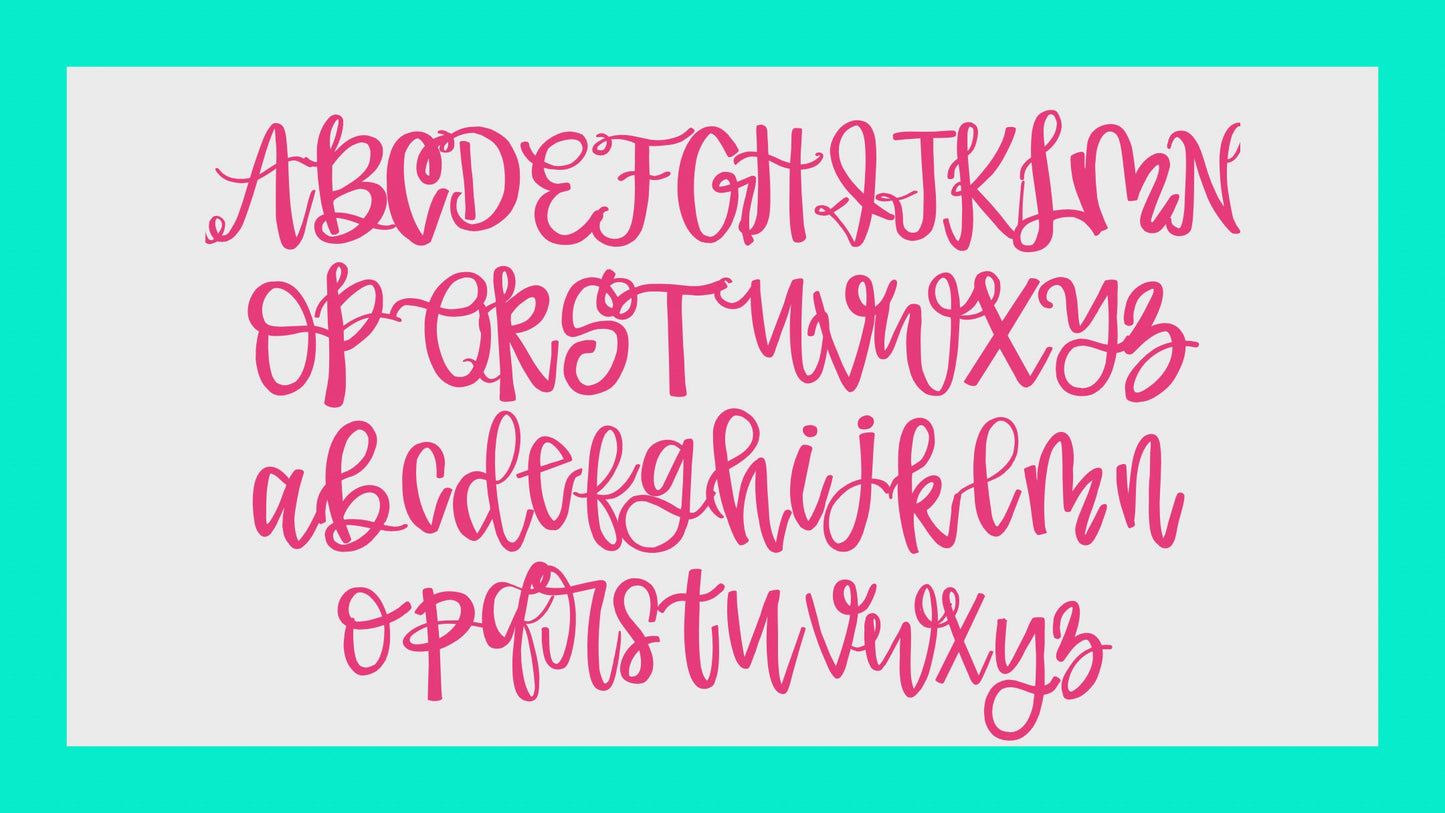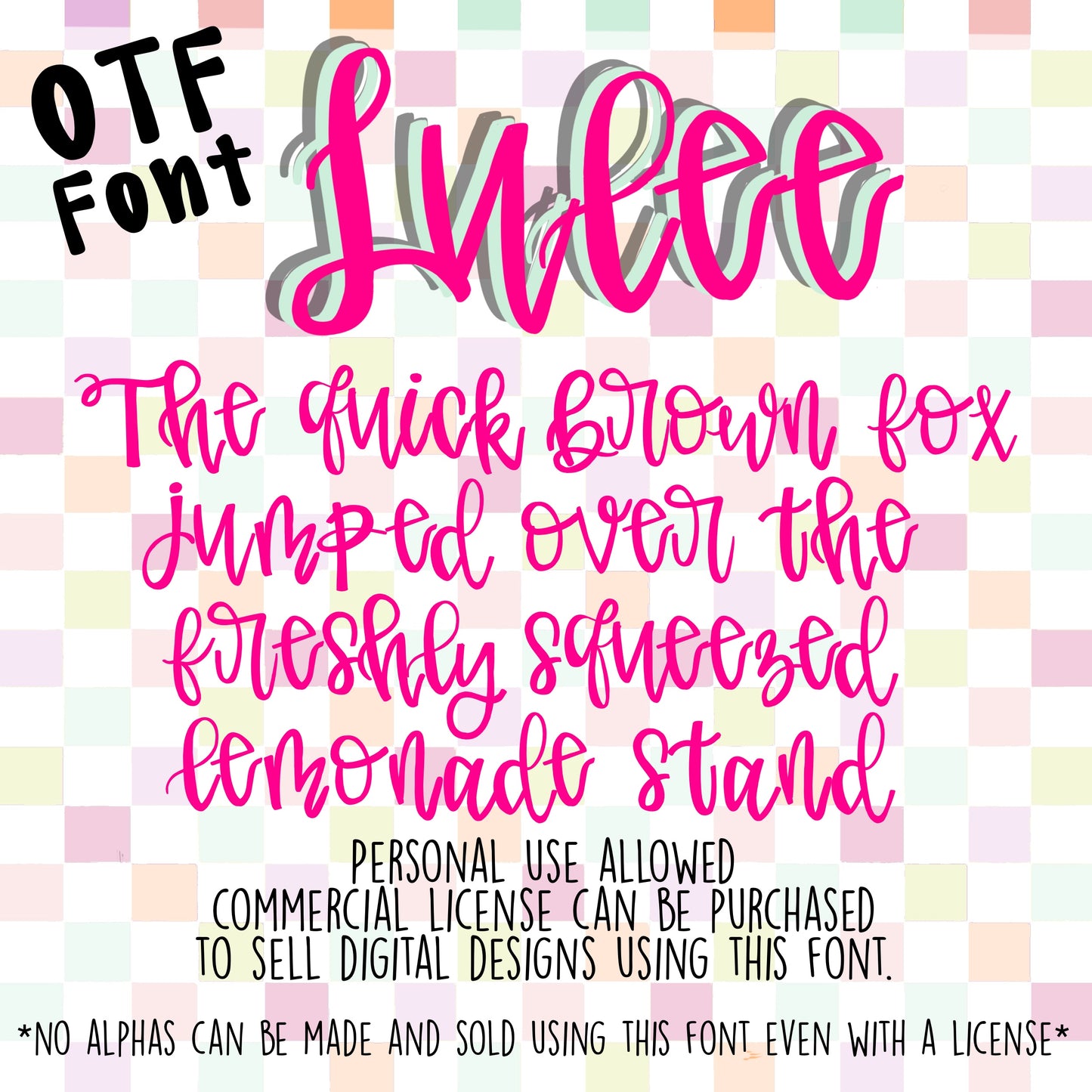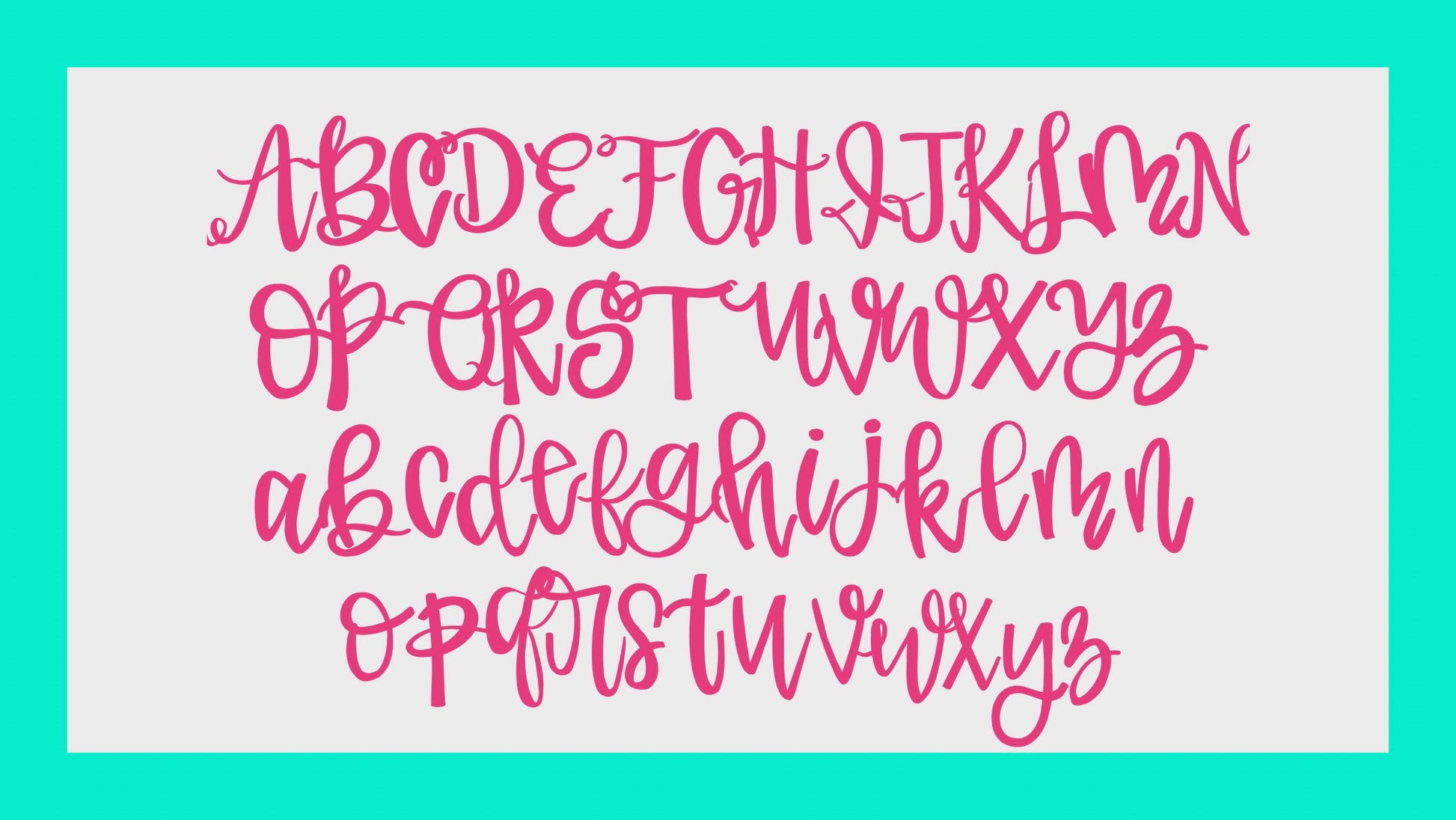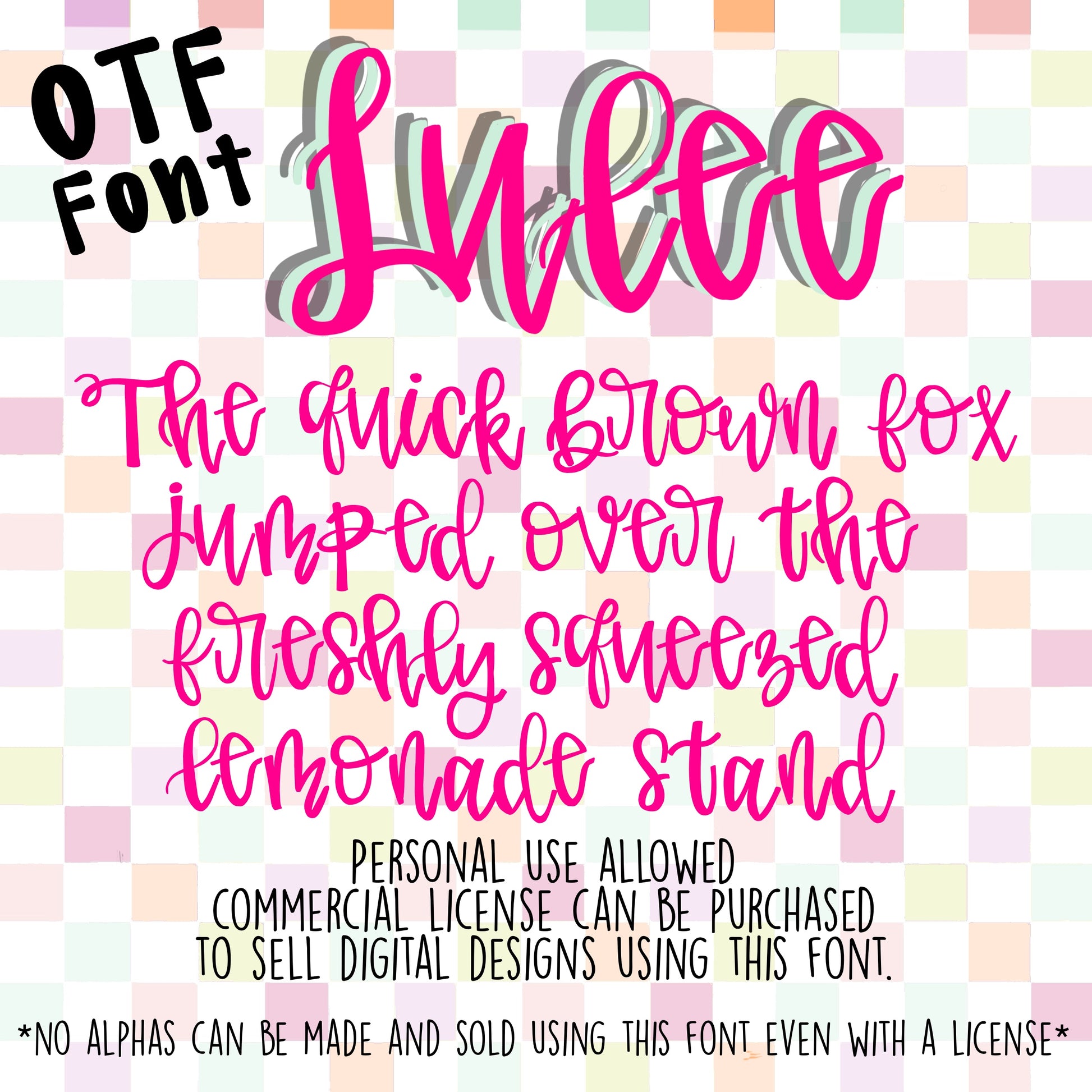
Lulee-Hand-Drawn Font
This is a super cute hand-drawn font that is a typeable-version of cute hand lettering! Your workflow and designs just got a whole lot quicker! What looks like hours spent on lettering a fully will only take you seconds!